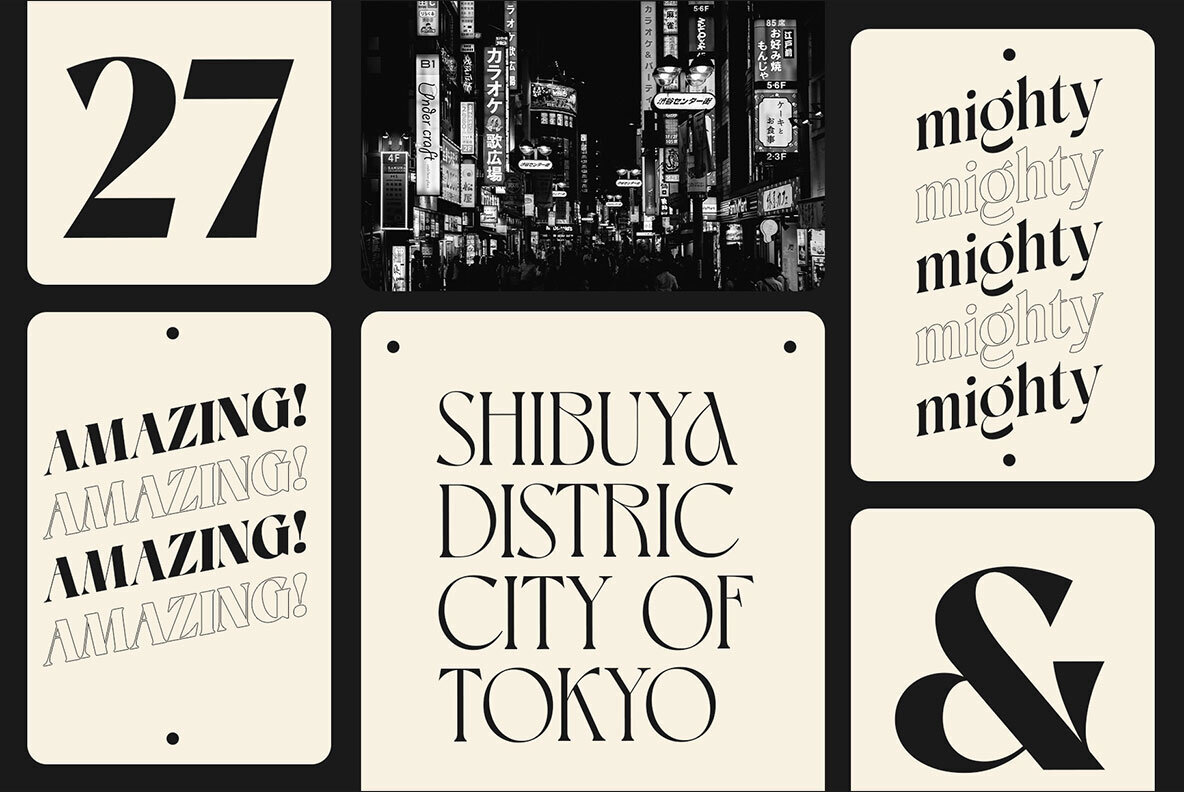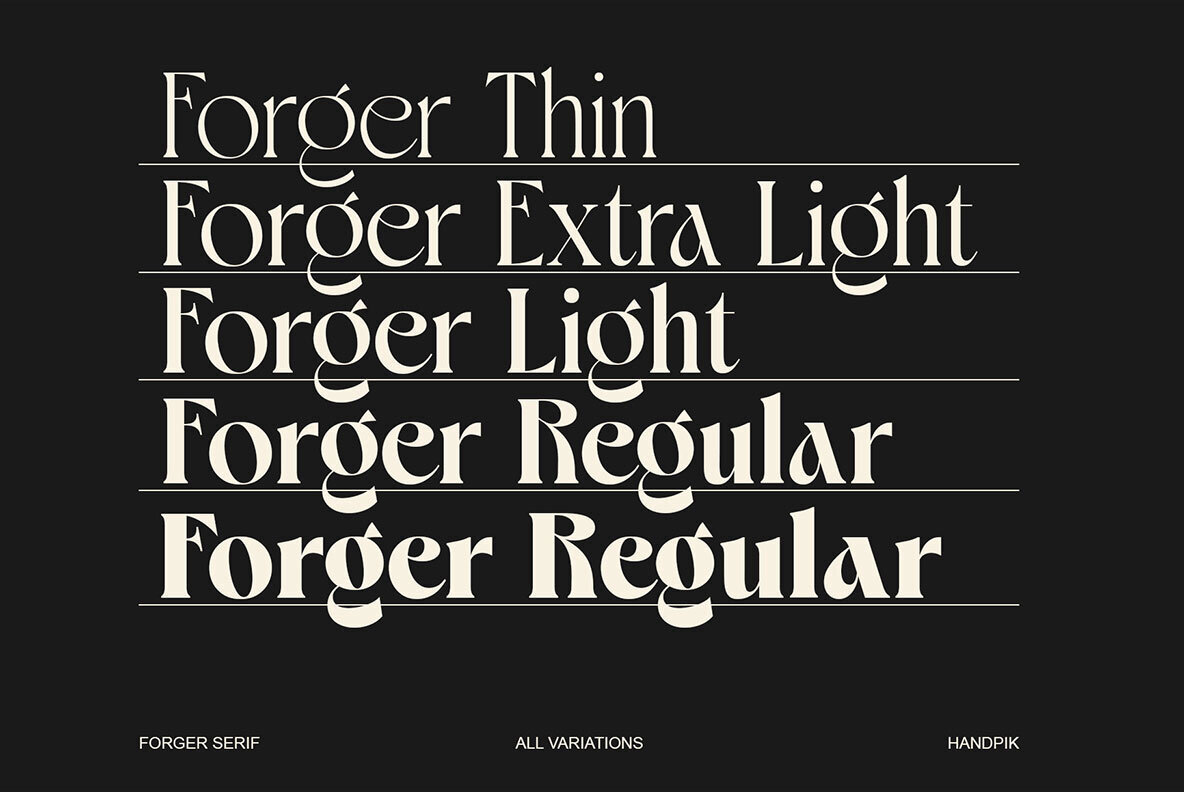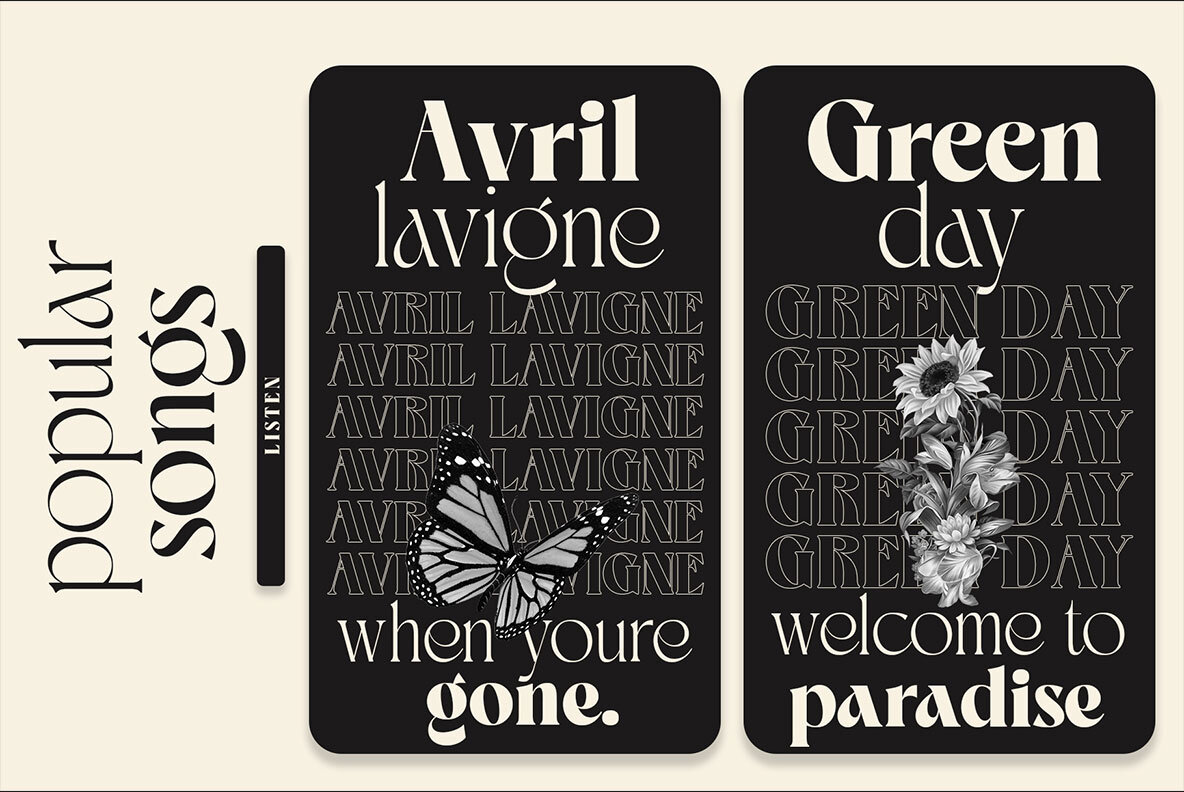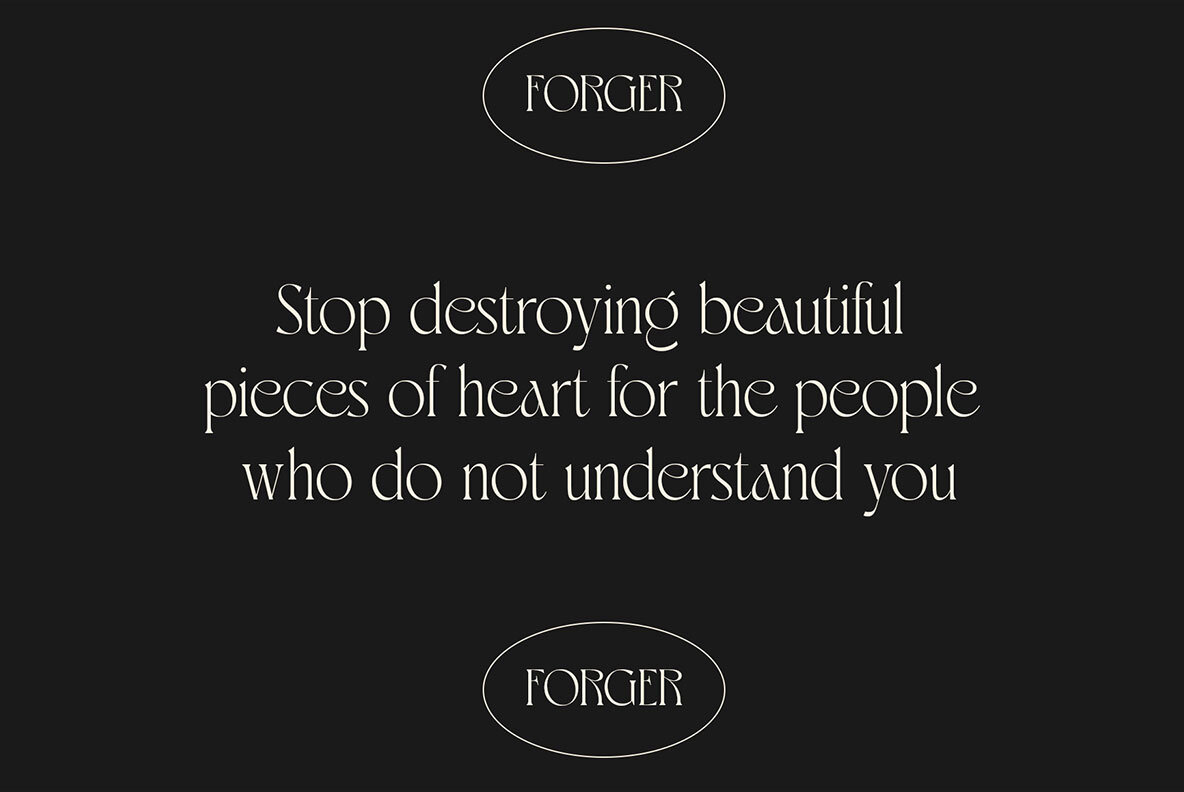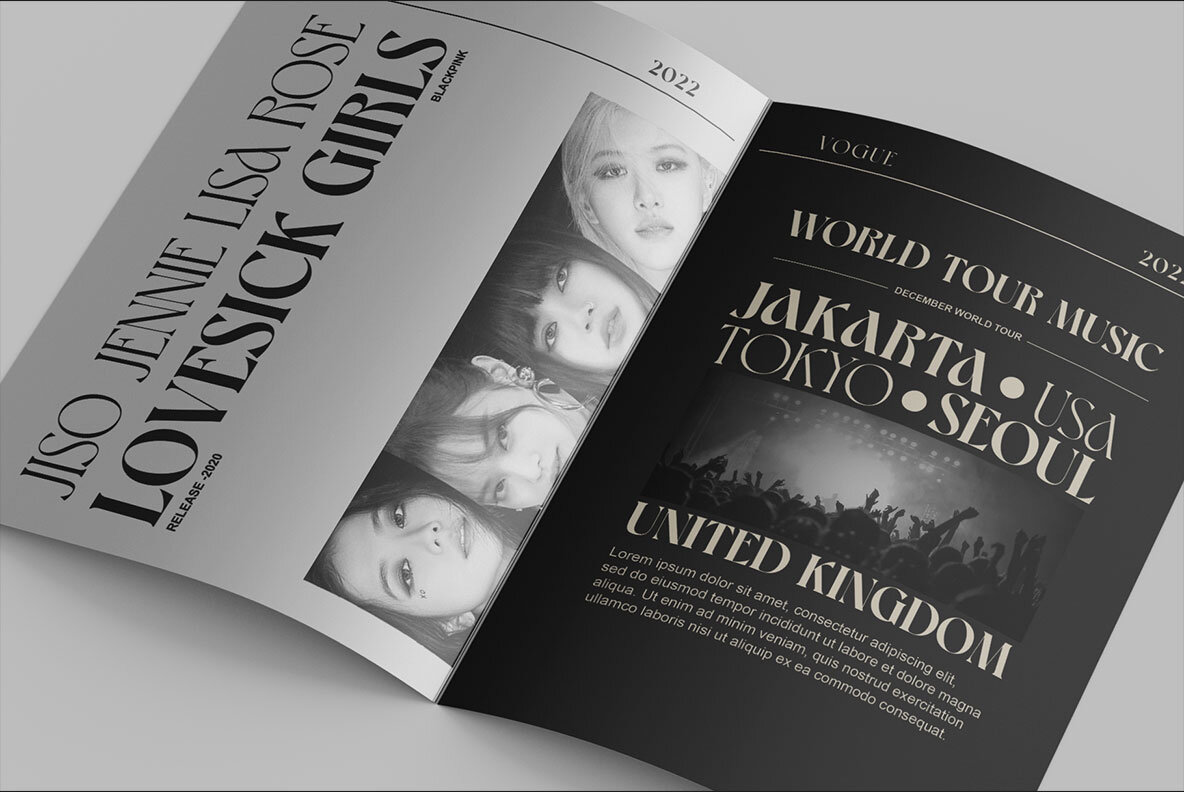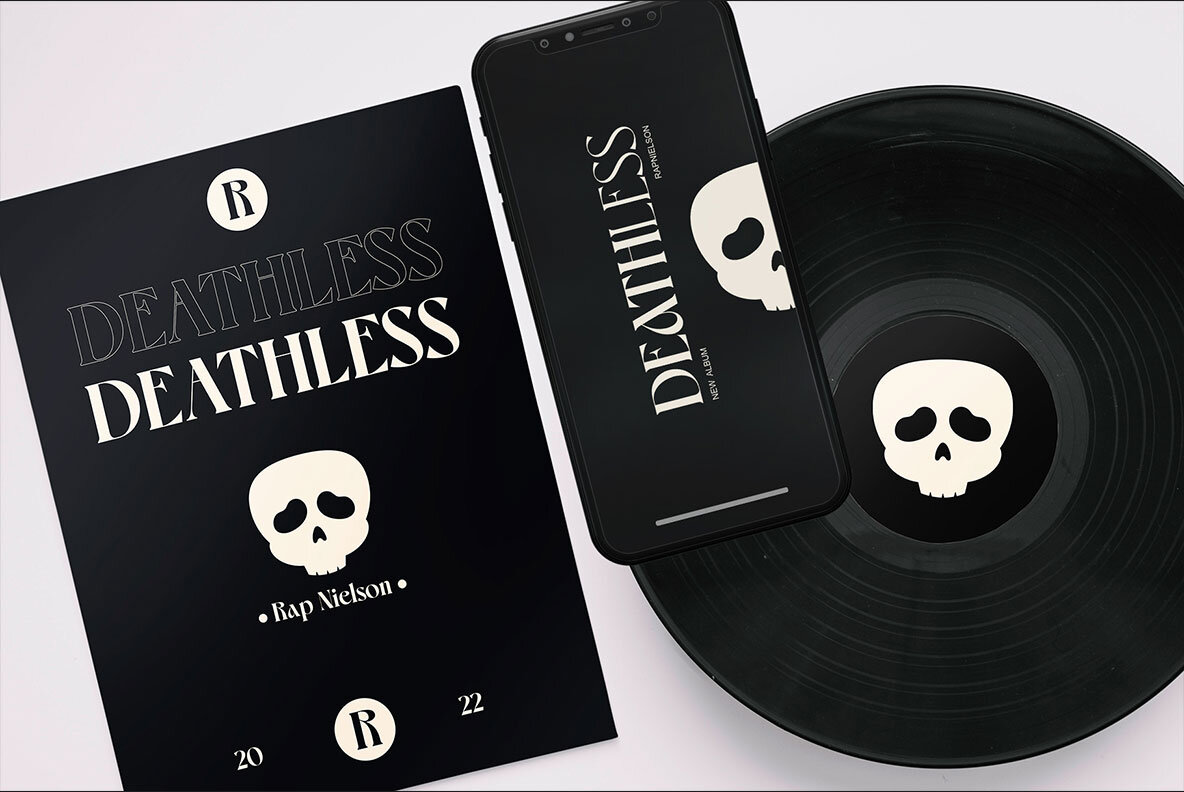
Forger Font
Forger offers an exceptional addition to your design toolkit. With its high-contrast serif design, this typeface captures attention and ensures readability, making it ideal for various creative projects. Each weight—from slender thin to robust bold—provides versatility for both digital and print mediums. Features:Forger: A Distinctive High-Contrast Serif Typeface